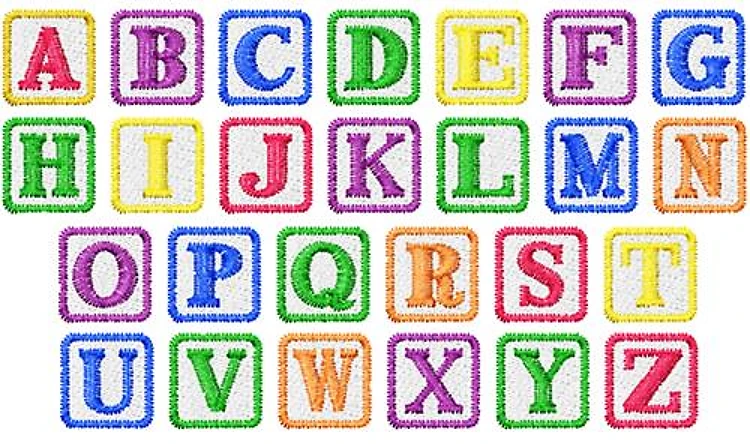
Machine Embroidery Designs is happy to present Baby Block machine embroidery font which has Colorful block machine embroidery font ideal for baby blankets and nursery decor. Each letter is filled and enclosed in a square for a vibrant look. Available in ART, DST, EXP, HUS, JEF, PCS, PEC, PES, SEW, STX, VIP, and XXX formats. included. If you would like to view more embroidery fonts and alphabets please search our embroidery fonts page.